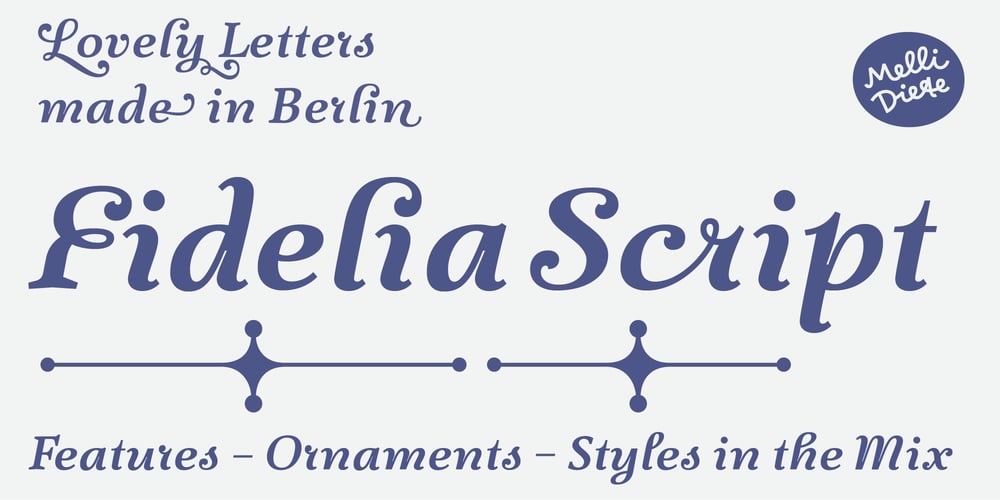
Fidelia Script Font Family was designed by Melli Diete and published by Melli Diete. Fidelia Script contains 4 styles and family package options. Fidelia – OpenType-Pleasure and fun treasure. 3 options in each weight – All in one! Fidelia is a dynamic & modern headline script typeface. You can dive with her into the miracles of Open Type Waters, or simply use the glyphs palette of your layout program the choose between every variation. Fidelia has many alternate letters, ligatures, fleurons, ornaments & ampersands for typographic variety.Play!